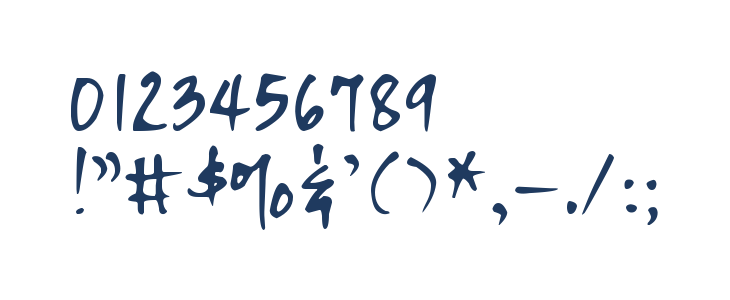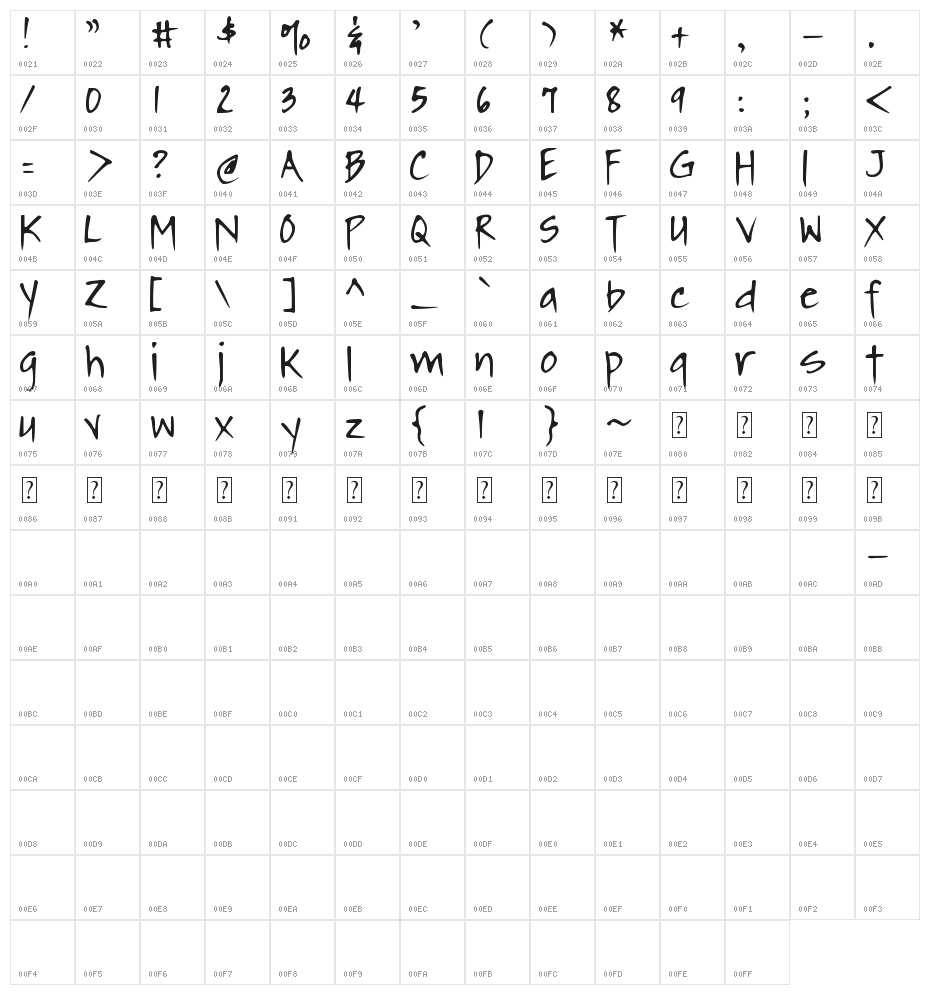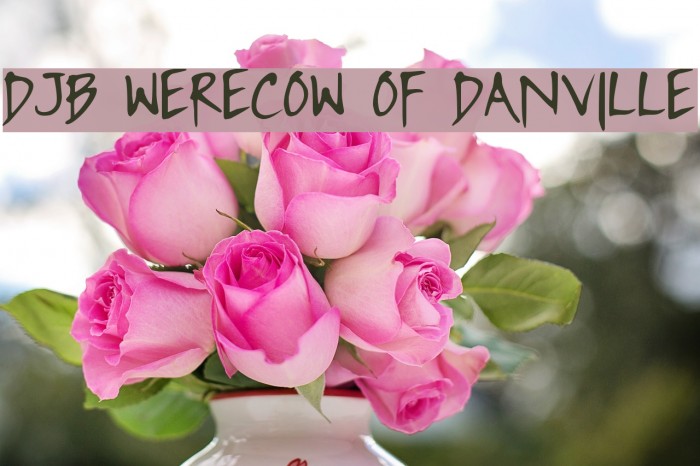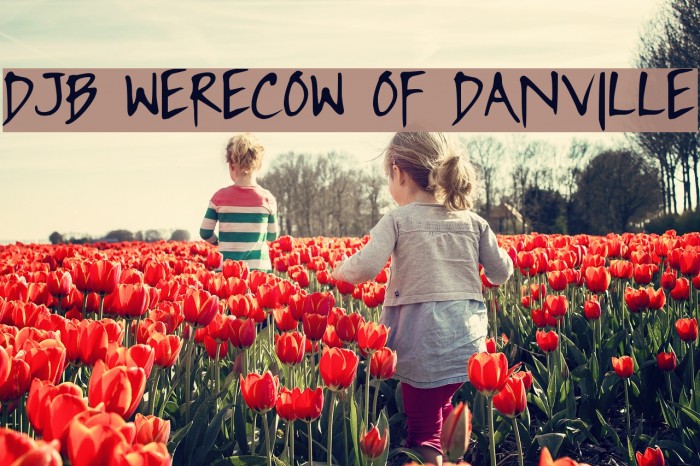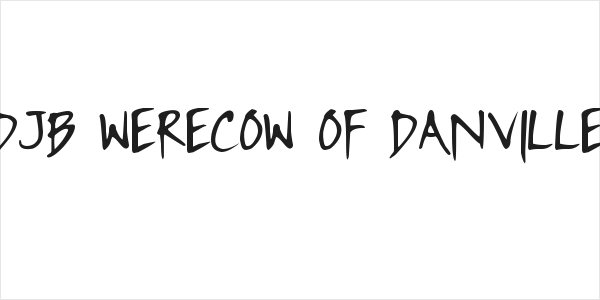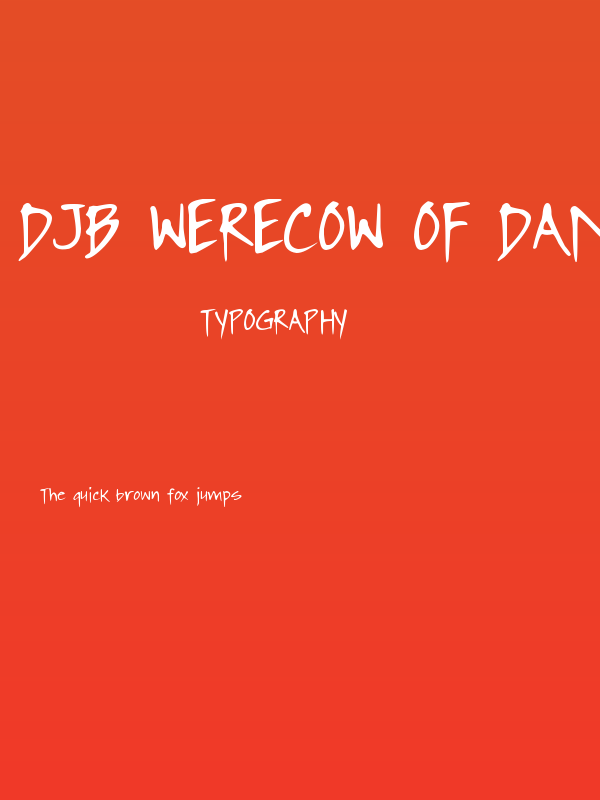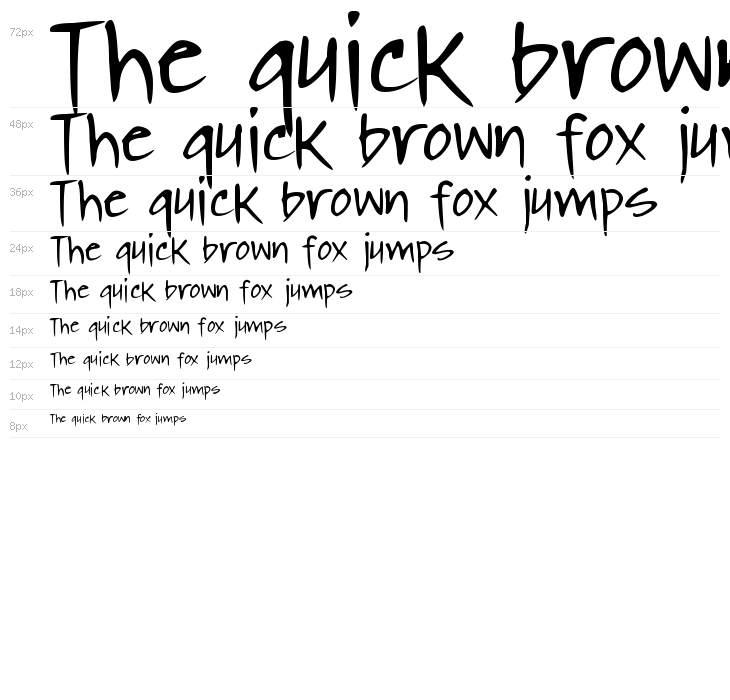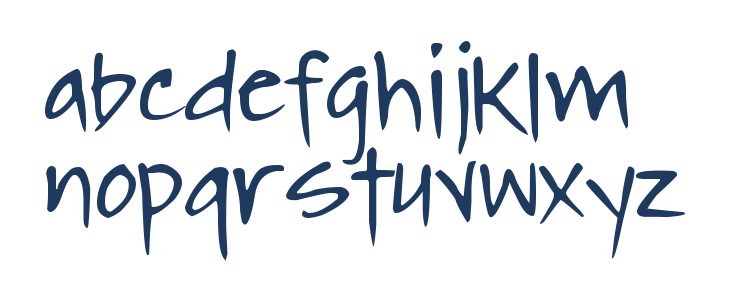
DJB WERECOW OF DANVILLE Font
DJB WERECOW OF DANVILLE Description
| Overall Style | Playful, Energetic, Casual |
| Proposed Projects | Ideal for children's book covers, playful branding, greeting cards, and social media graphics. |